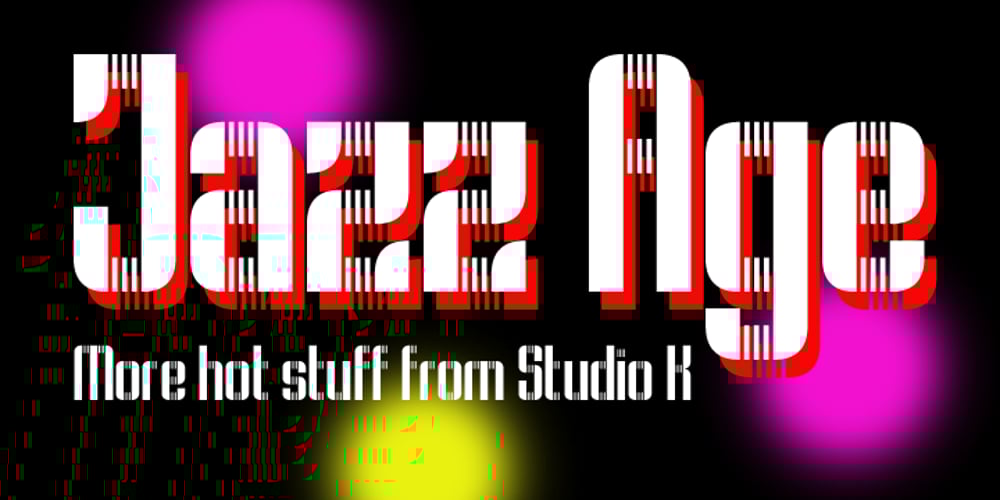
Jazz Age Font Family was designed by Keith Tricker and published by Studio K. Jazz Age contains 2 styles and family package options. Jazz Age is inspired by the Golden Age of Jazz, the Twenties and Thirties. Think Scott and Zelda Fitzgerald, cocktails, flappers and the whole Art Deco thing. Oh, and don’t forget the radios, by which I mean old Bakelite valve or tube radios with their grilles and fretwork. This font is a celebration of them too.